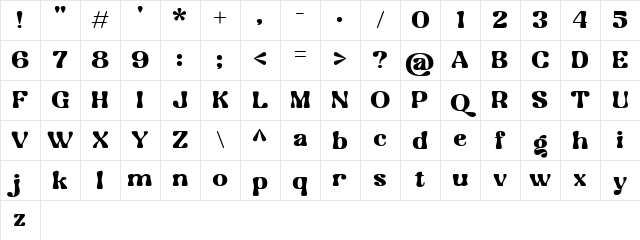
Codigra Regular
Designer: Prio Nurokhim Aji
Design Context for Codigra
Codigra is a composed and adaptable typeface that performs quietly and consistently across a wide range of design contexts.